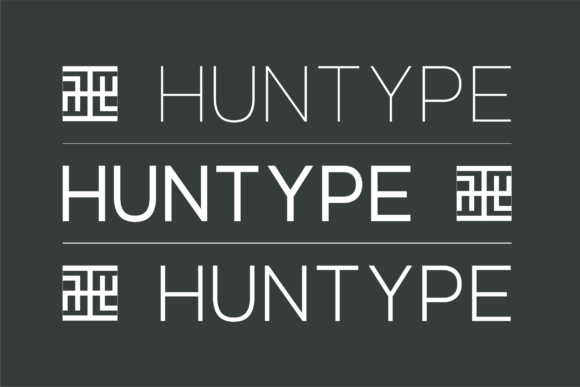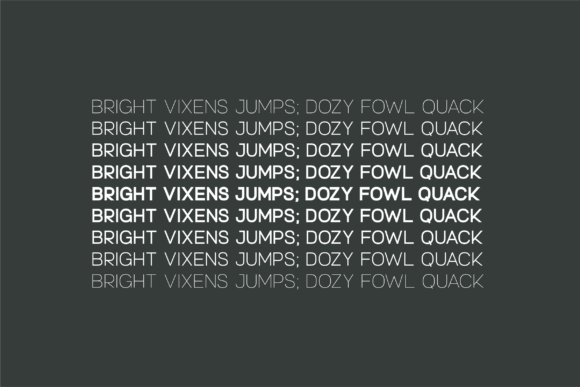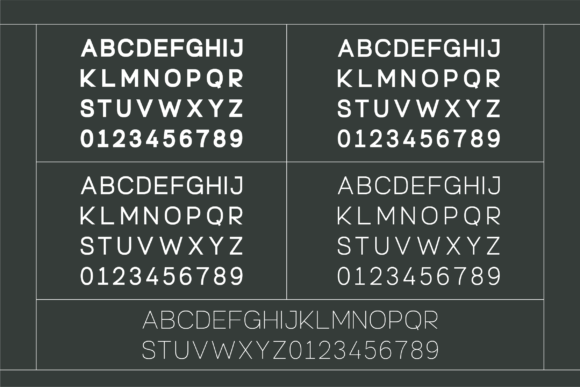
Introduction to Proestin Font
Introducing Proestin, a meticulously crafted font family that epitomizes elegance, modernity, and versatility.
With its five distinct weightsβ€”thing, light, regular, black and bold Proestin offers a wide range of creative possibilities, making it the perfect choice for designers and content creators.
Proestin Font offers exceptional quality and versatility, making it a valuable addition to your design toolkit. Whether you’re creating for personal projects or commercial use, Proestin Font delivers professional results.